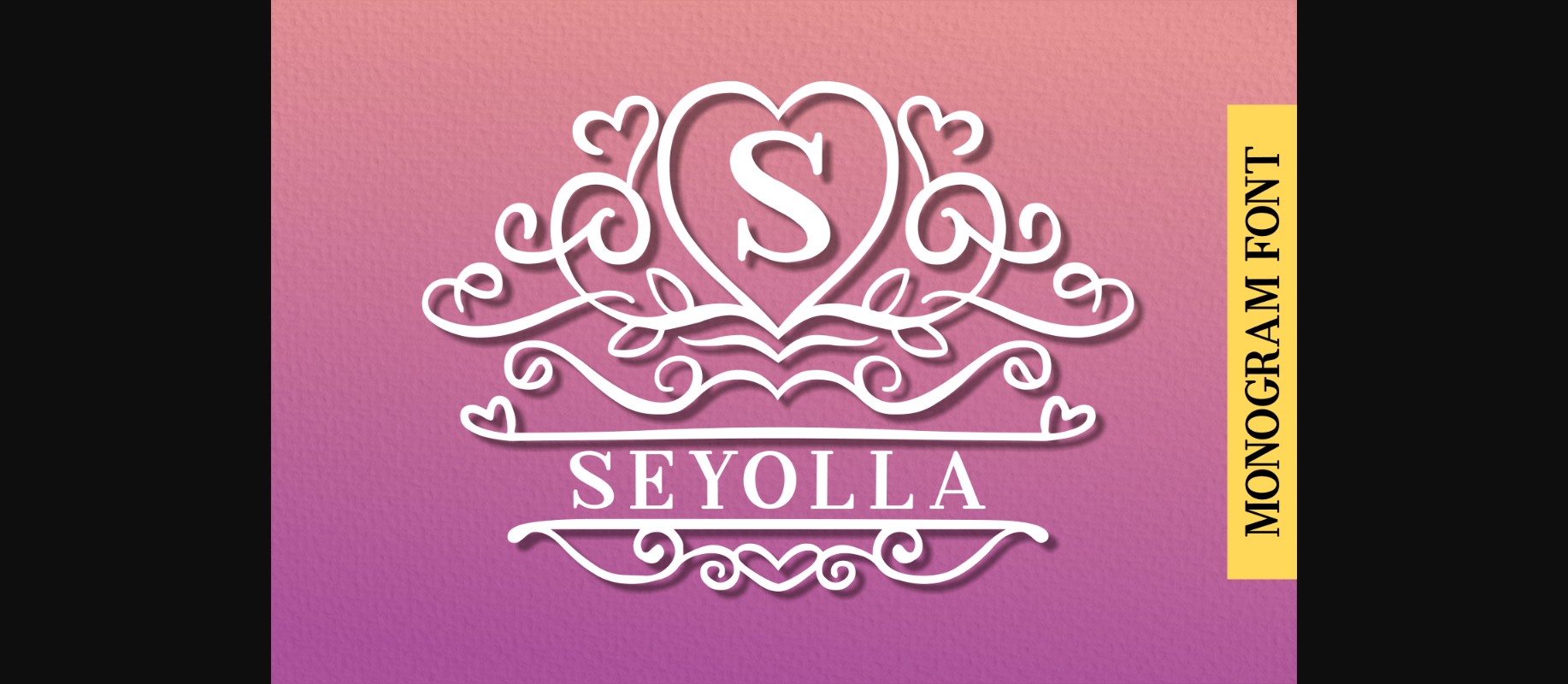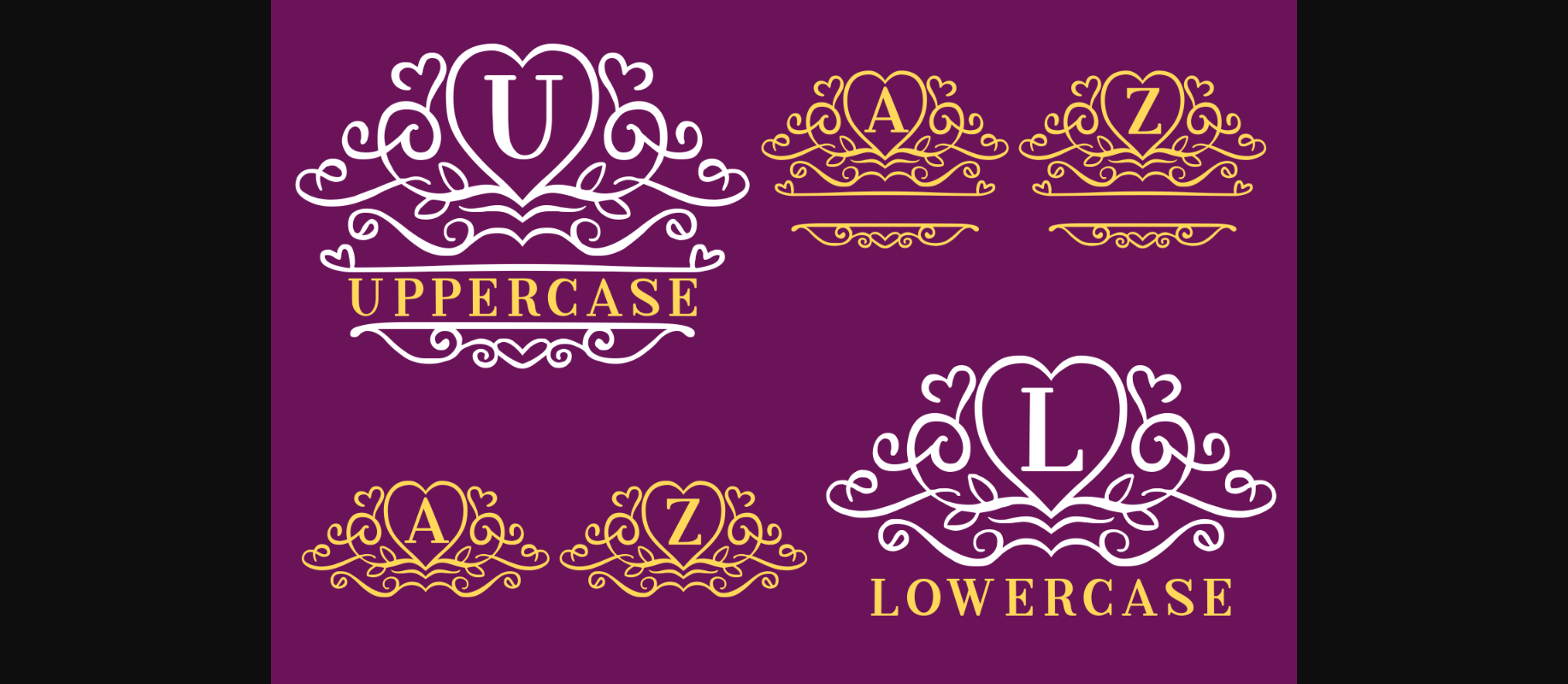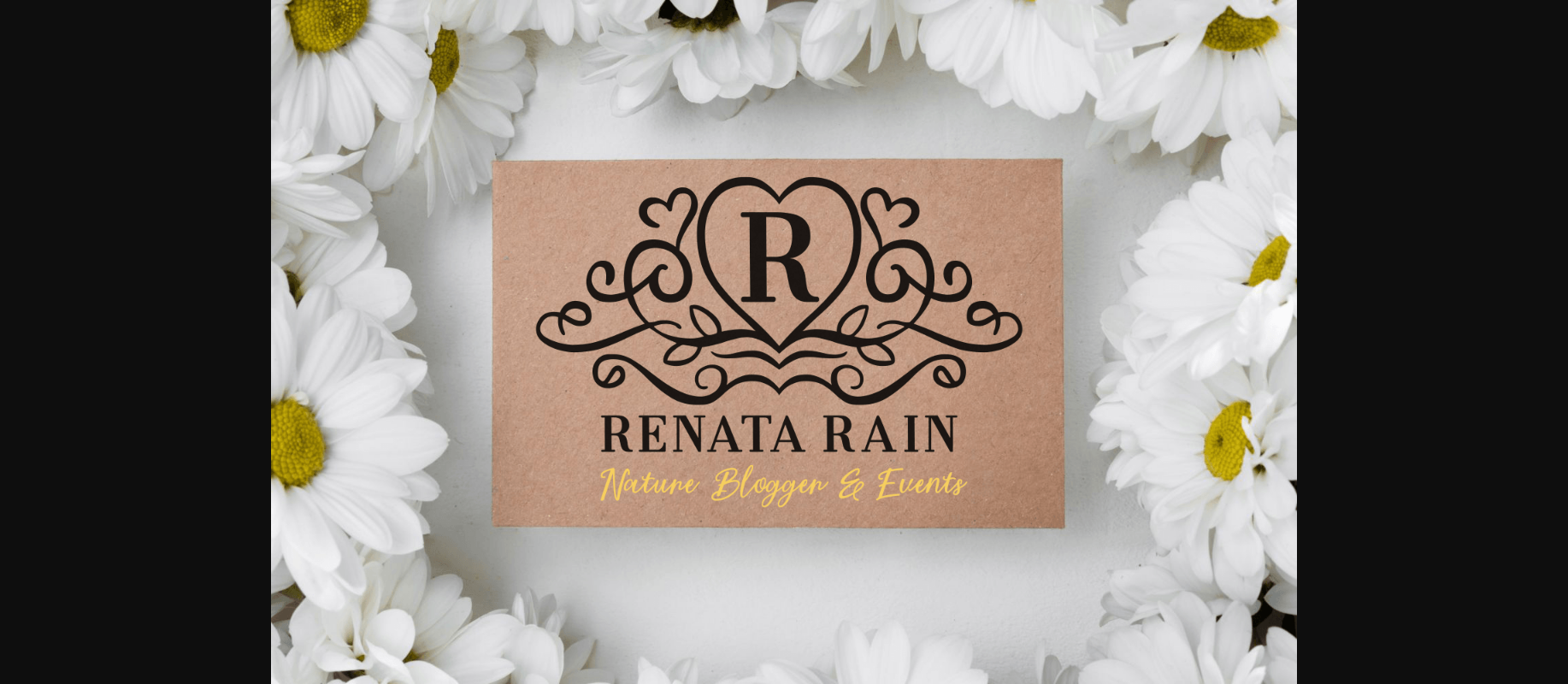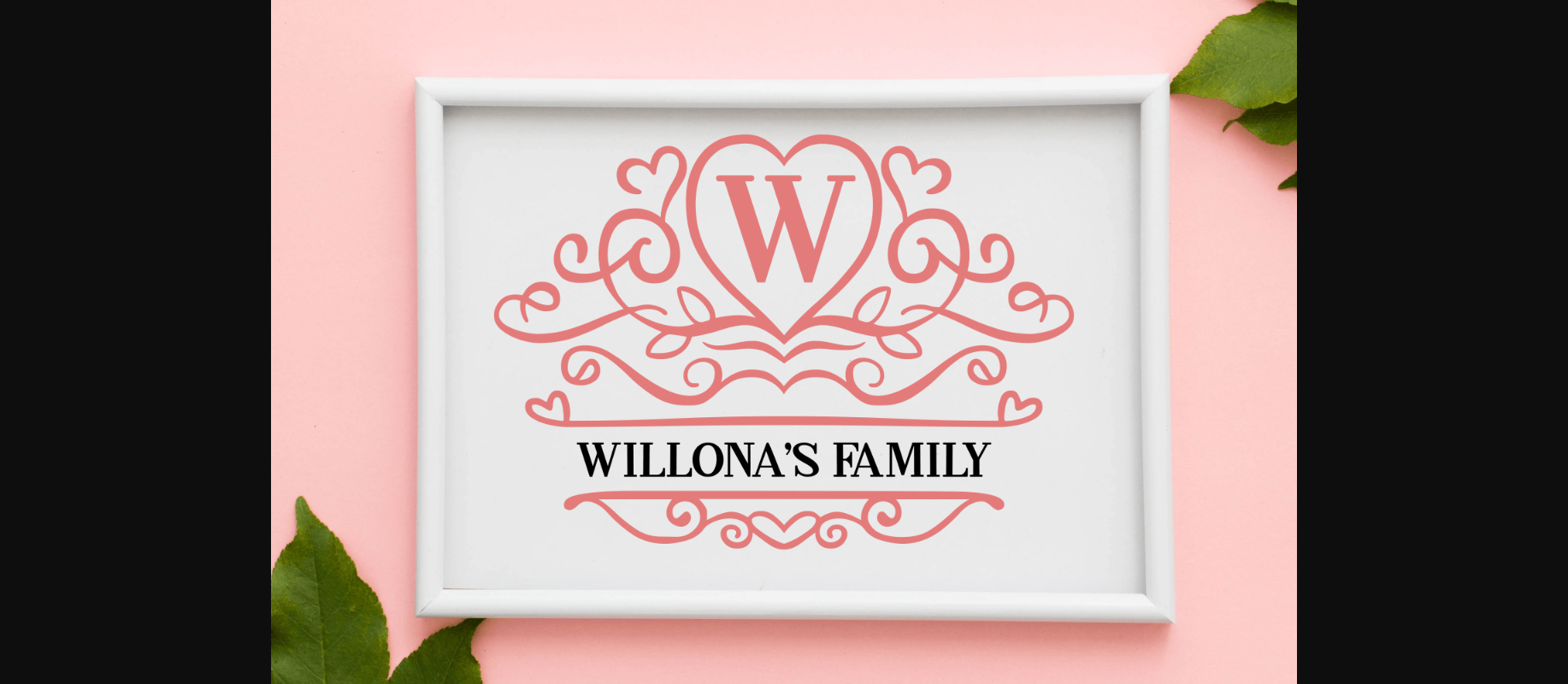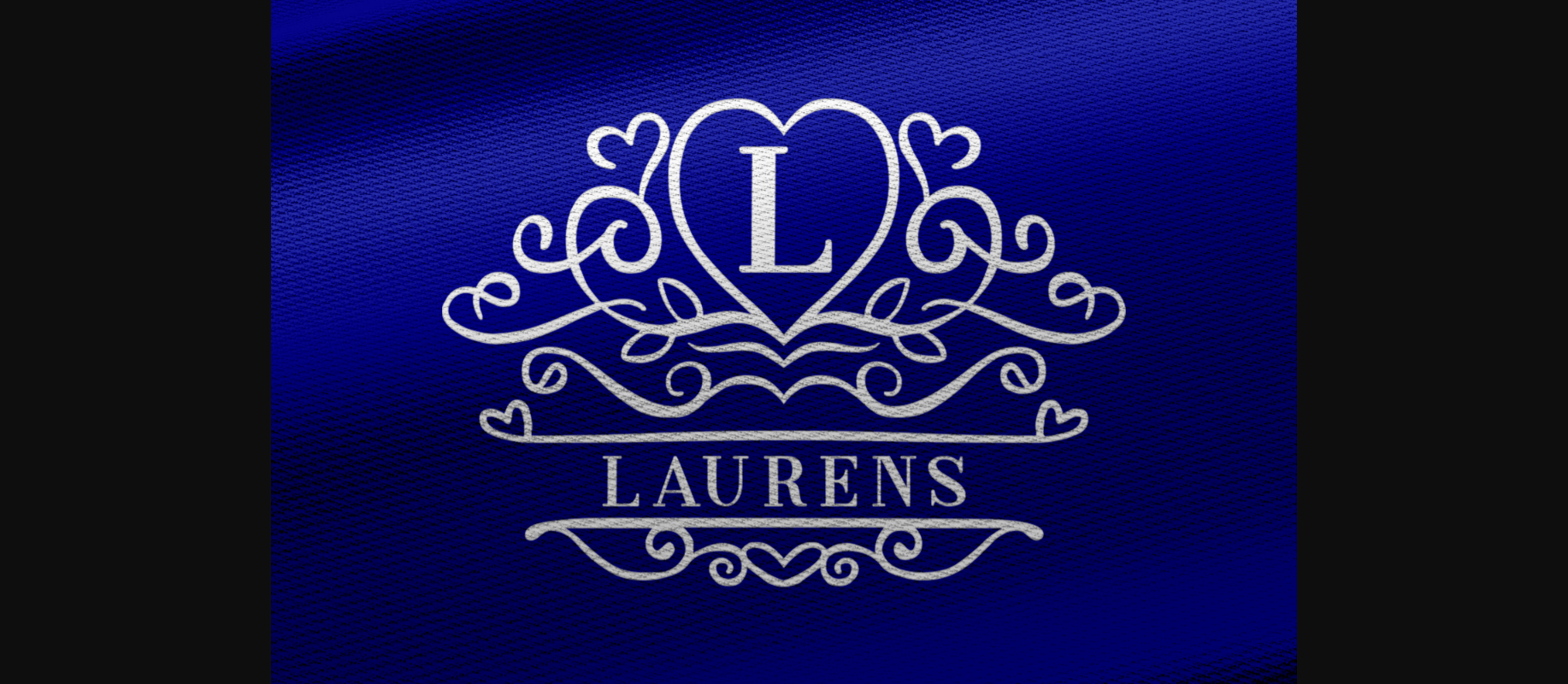
About Seyolla Font
Seyolla is an exquisite decorative font with sophisticated characters and a dainty appearance. Use this gorgeous font to elevate the look of any item or project!